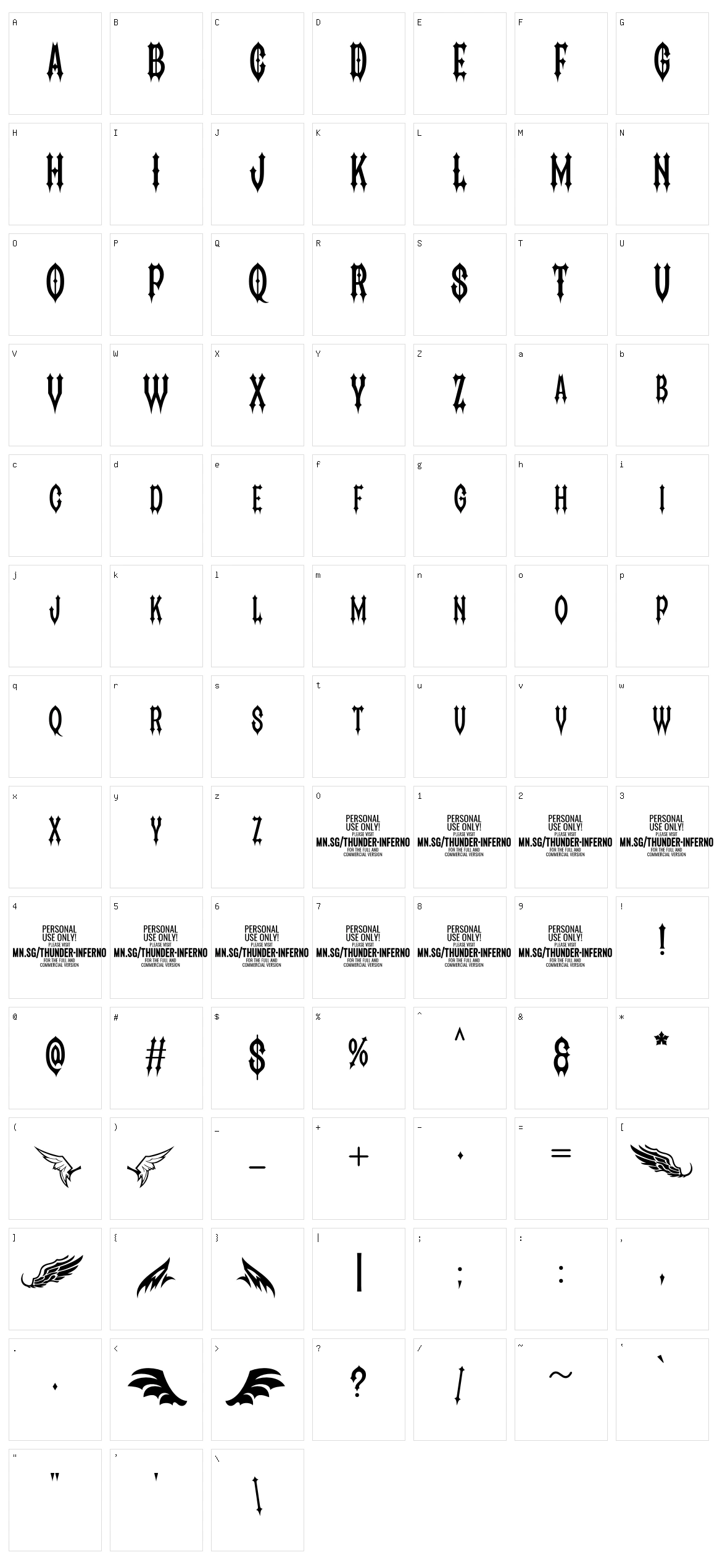
Thunder Inferno
Designed by: Mans Greback
Thunder Inferno is a gothic black metal typeface with sharp serifs.
Rooted in the aesthetics of heavy metal and the occult, this typeface is a harbinger of darkness and intensity.
Evocative of Halloween and gothic grandeur, Thunder Inferno also captures a march toward darkness. It serves as a rebellious voice for skate culture and alternative lifestyles.
Crafted exclusively in uppercase, this font is a growl in typographic form, a visual cacophony that grabs your attention and refuses to let go.
Capitalize the first and last letters of any word for symmetrical heavy metal style.
Example: Heavy metaL
Enclose any word in < > ( ) [ ] { } to give it wings.
Example: [HawkstylE]
Thunder Inferno is built with advanced OpenType functionality and has a guaranteed top-notch quality, containing stylistic and contextual alternates, ligatures, and more features; all to give you full control and customizability. It has extensive lingual support, covering all Latin-based languages, from Northern Europe to South Africa, from America to South-East Asia. It contains all characters and symbols you'll ever need, including all punctuation and numbers.
Behind this visceral creation is Mans Greback. Known for pushing the boundaries of type design, Greback has ventured into the dark recesses of aesthetic extremes with Thunder Inferno. His portfolio is a testament to his versatility and daring, turning simple alphabets into powerful visual narratives.